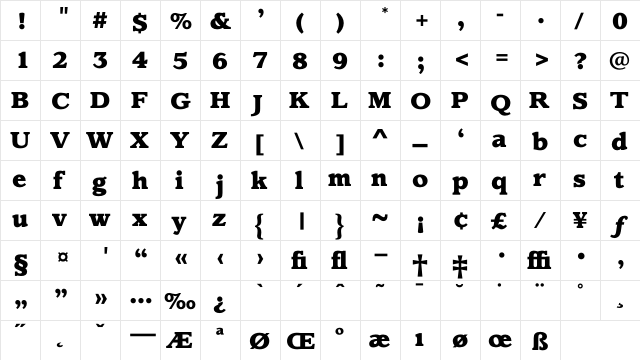
ClaremontExtraBold Regular
Design Context for ClaremontExtraBold Typeface
ClaremontExtraBold takes a measured approach to typography — its balanced proportions and neutral character make it a reliable workhorse for both digital and print work. The heavy weight commands attention and anchors typographic hierarchies.
Pro Tip: Use ClaremontExtraBold in both headline and body roles to test its range before committing to a single application.